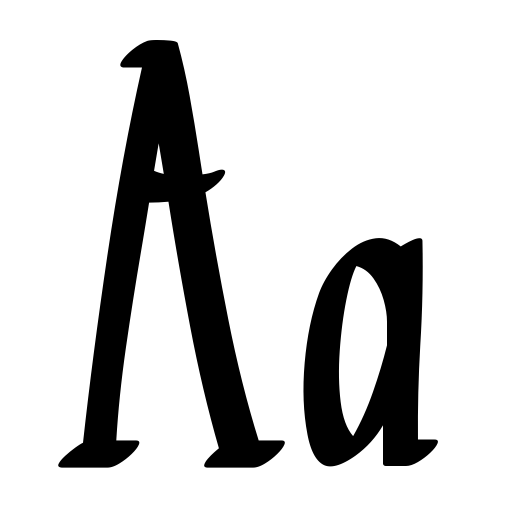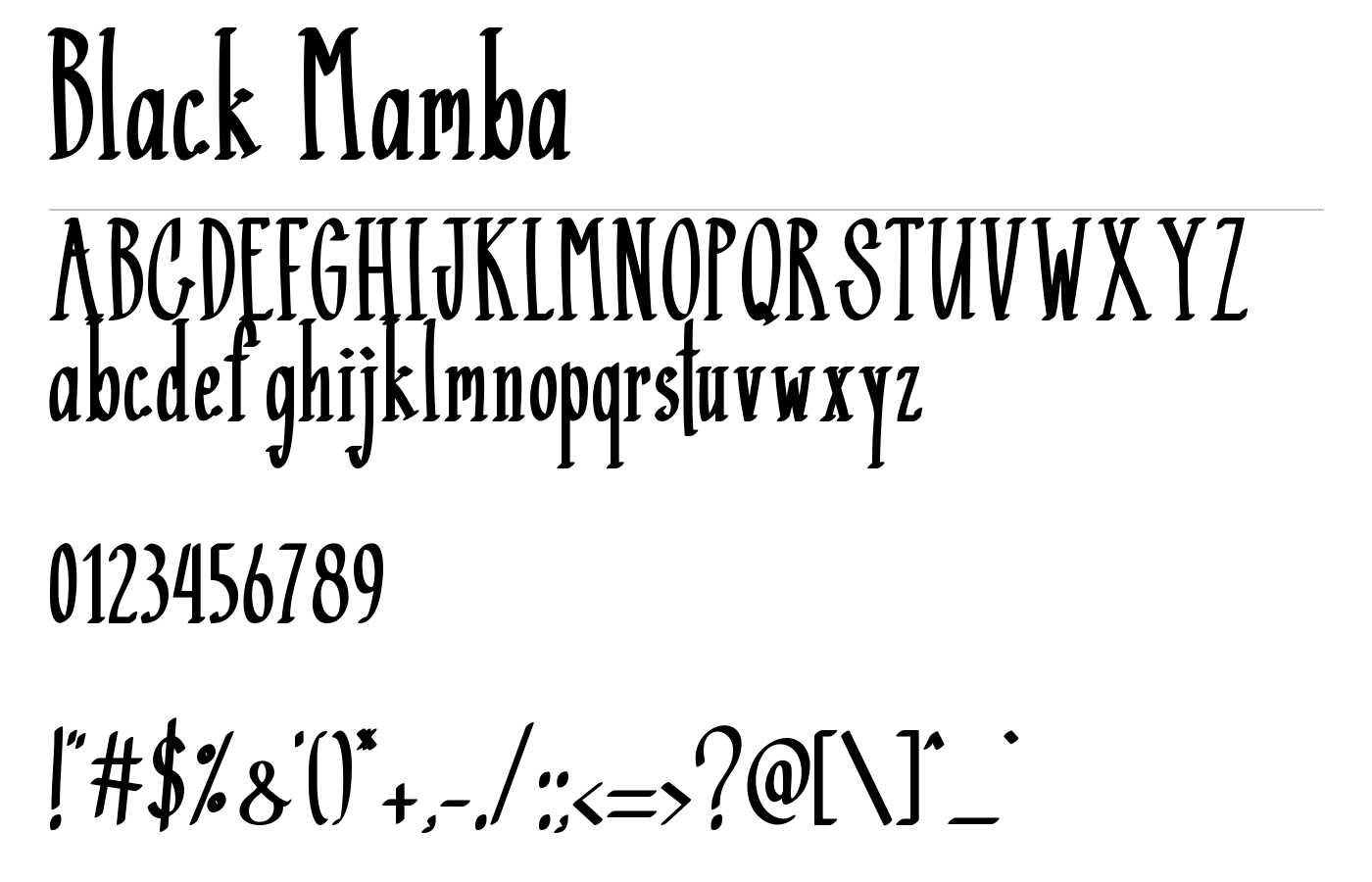
Black Mamba is a tall, narrow serif font with a unique, slightly gothic personality, featuring sharp, angular serifs and pronounced vertical stress. Its high contrast and condensed letterforms create a striking, dramatic look perfect for headlines, posters, and branding that seeks a bold, vintage, and slightly mysterious vibe. This font works well in creative projects where distinctive, attention-grabbing typography is desired.
Black Mamba Font
About Black Mamba Font
| Font family | Black Mamba Font |
| Designer | Aldedesign 2019 |